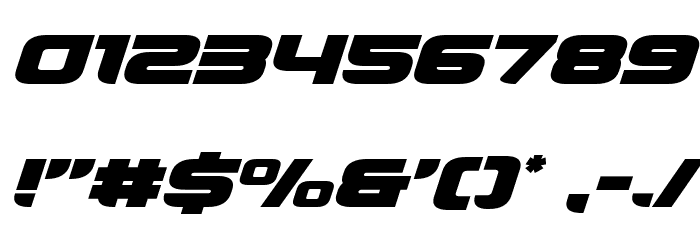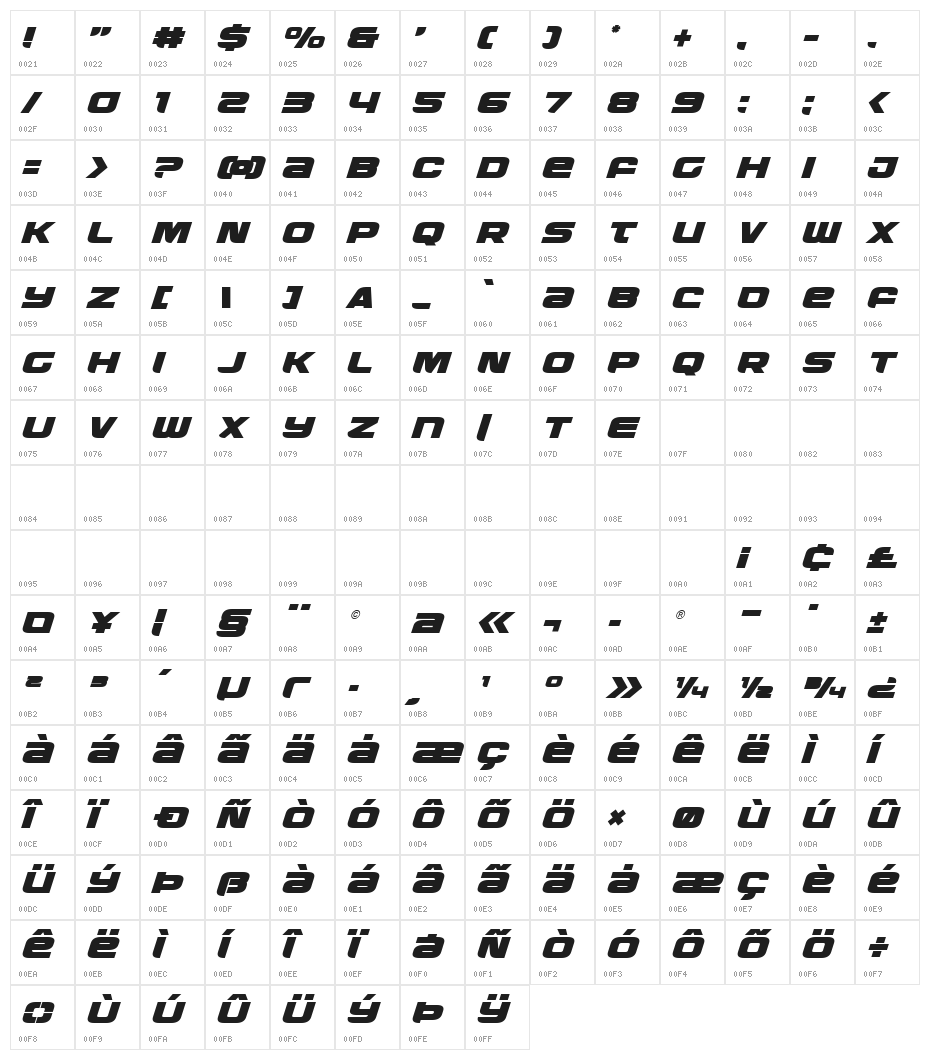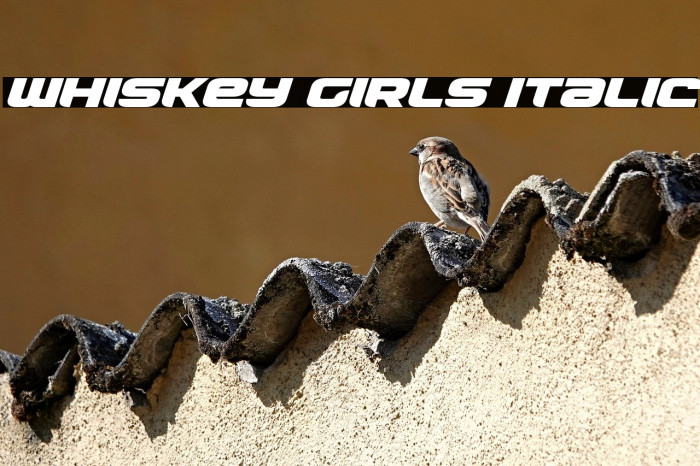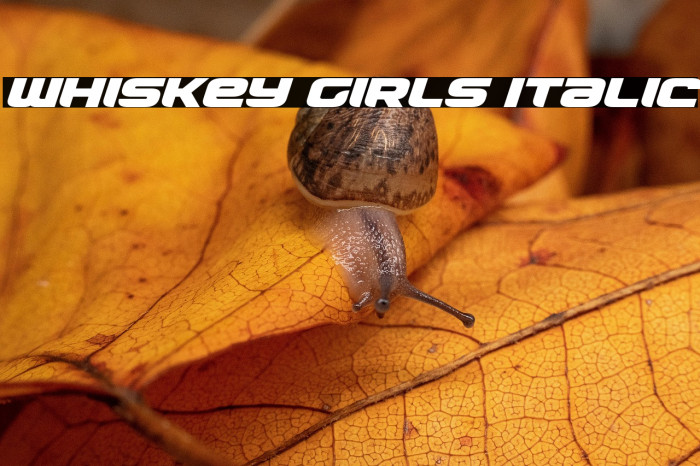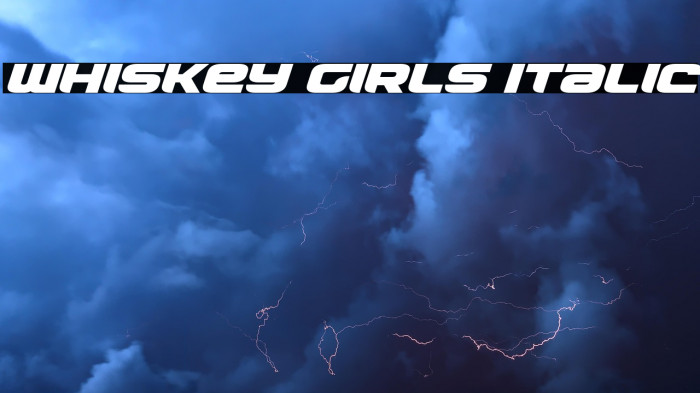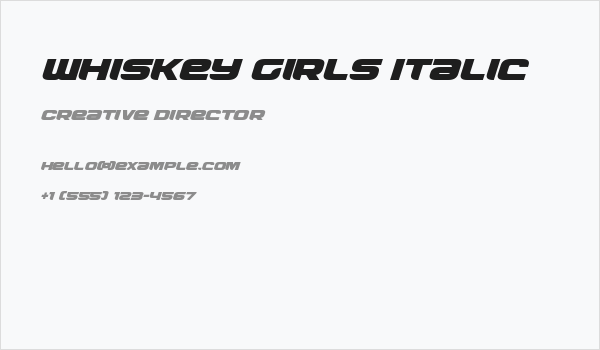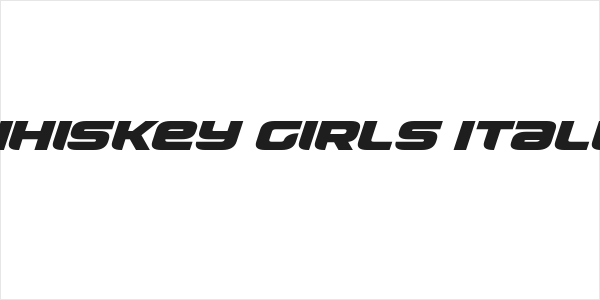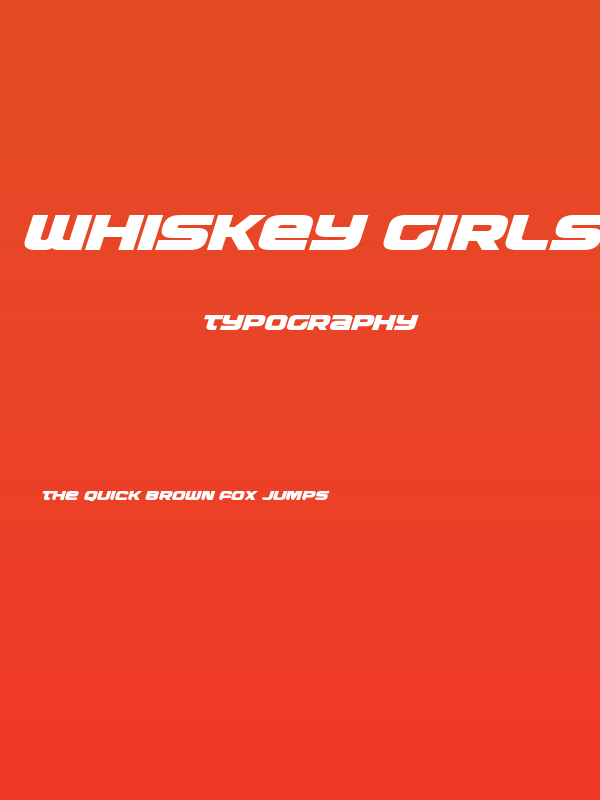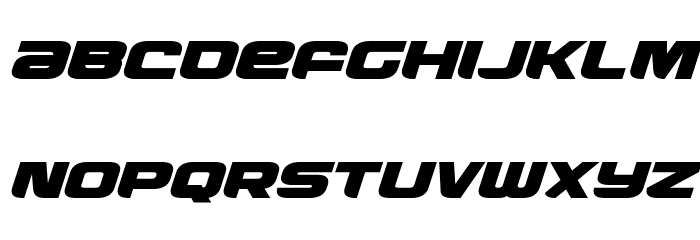
Whiskey Girls Italic Font
Whiskey Girls Italic Description
This font features a bold, italicized style with a modern and dynamic appearance. The characters are slightly slanted, giving a sense of motion and energy. The strokes are thick and consistent, providing a strong presence on the page. The design is sleek and contemporary, with a slight futuristic edge. The uppercase and lowercase letters maintain a uniform width, contributing to a cohesive look. The numerals and special characters are designed to match the bold and italicized style, ensuring a harmonious overall appearance.